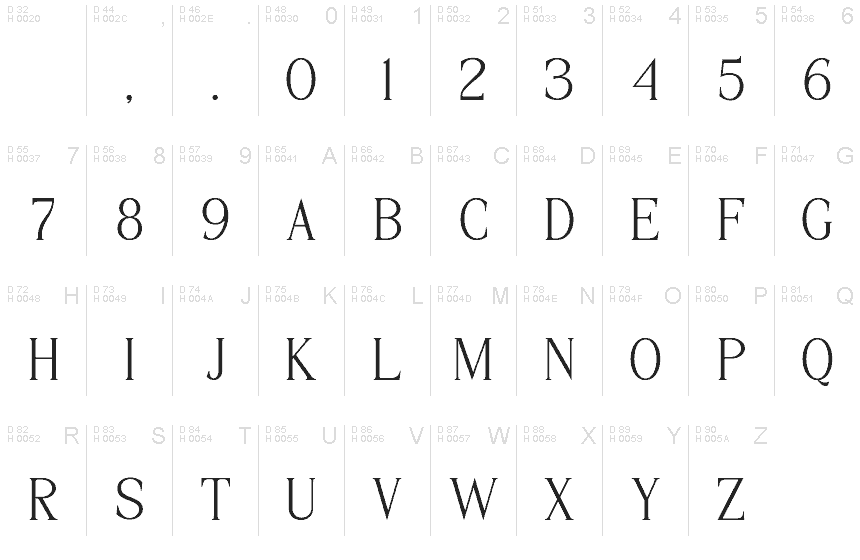
magoa Regular
Magoa font by Achmad Yani of Flawless and co. is a serif typeface that exudes elegance, refinement, and sophistication. Its classic aesthetic and timeless feel make it an excellent choice for projects that demand classy typography to add value to the design. Use it alongside your other favorite fonts for editorial purposes or in luxury branding.
Get inspired by free serif font Magoa which you can use in advertising, product packaging, social media designs, magazine covers and pages layouts, book cover designs including hardcover books or smaller paperbacks along with ideas for digital applications like website headers or mobile apps!